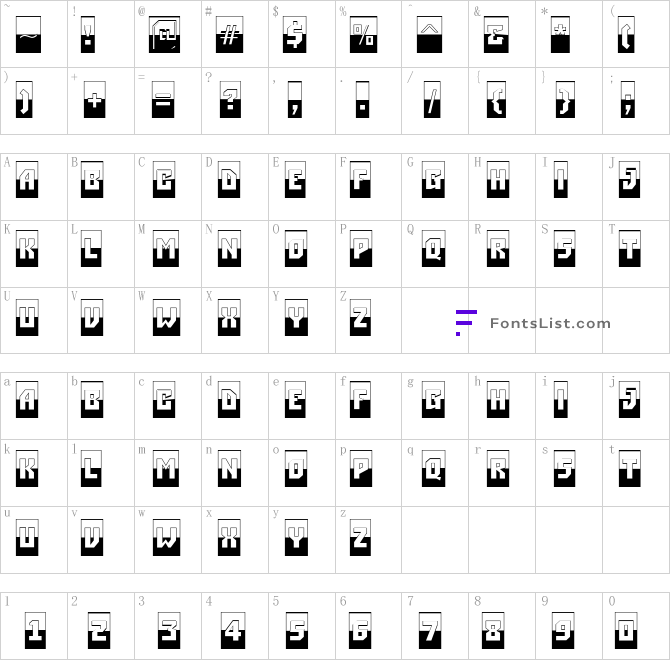
- Font Name:a_SimplerCmB&W
a_SimplerCmB-W-Bold.ttf is a very beautiful artistic font, a_SimplerCmB-W-Bold.ttf is widely used in the design and printing of various books and pictures,a_SimplerCmB-W-Bold.ttf has a strong visual impact,a_SimplerCmB-W-Bold.ttf is a commonly used font in newspapers, magazines and books, and is used in posters, e-commerce Poster design, store design, logo design, font design and other fields.a_SimplerCmB-W-Bold.